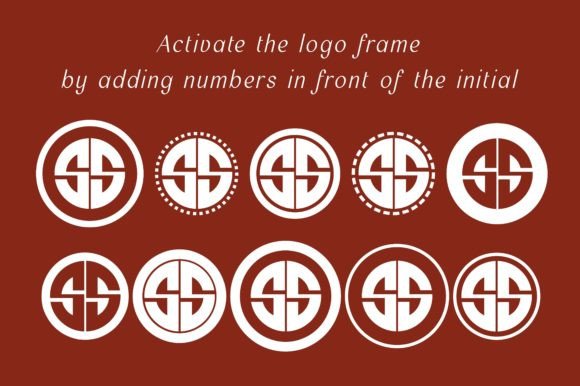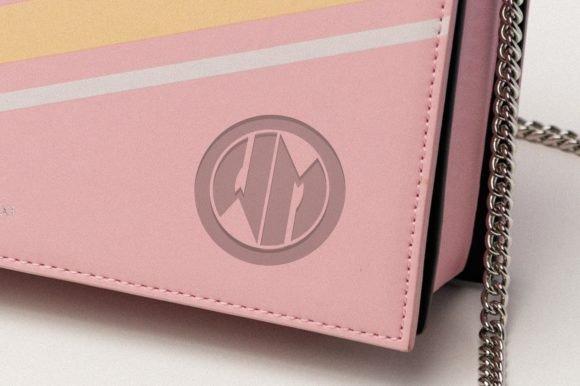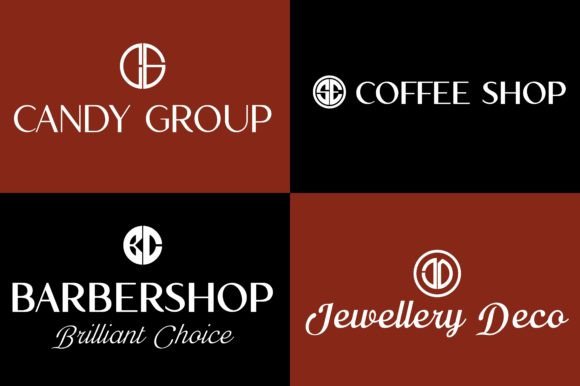
Introduction to Circle Two Letter Font
As a designer, you’ve probably experienced that moment of inspiration when a single font can elevate an entire project. For me, it was the discovery of the Circle Two Letter Font – a stunning monogram font that effortlessly combines elegance and simplicity. Its clean, modern design features two interlocking letters that seem to dance together in perfect harmony. Whether you’re working on a wedding invitation or a corporate logo, this font adds a touch of sophistication that’s hard to resist.
What makes the Circle Two Letter Font truly special is its versatility. With its transparent background and high-quality design, it’s the perfect resource for designers looking to add a unique touch to their creative projects. Plus, with a free download available, it’s an accessible design tool that can be used by designers of all levels.
Key Features of Circle Two Letter Font
- High-quality design for creative projects, available for free download as a design resource.
- Comes in a range of two-letter combinations, perfect for logos, branding, or other design elements.
- Features a transparent background, allowing for seamless integration into various design projects.
- Perfect for designers looking for a unique and creative element to enhance their design projects.
Honest Review: Circle Two Letter Font
I recently stumbled upon the Circle Two Letter Font, a unique design resource that I just had to share with you all. As a designer, I’m always on the lookout for high-quality fonts that can elevate my creative projects.
The Circle Two Letter Font is a free download, which is a huge plus in my book. I love that it’s available for anyone to use, and the transparent background makes it super versatile. ✨ One thing I appreciate about this font is its simplicity – it’s clean, easy to read, and works well in a variety of contexts.
Here are some of the key features that I think make the Circle Two Letter Font shine:
- Unique two-letter combinations that add a touch of whimsy to any design
- High-quality design that looks great on both light and dark backgrounds
- Transparent background makes it easy to customize and layer with other elements
That being said, there are a few limitations to keep in mind: ⚠️ The font is only available in a limited range of sizes, which may not be ideal for large-scale designs. Additionally, the two-letter combinations can feel a bit repetitive if used too extensively.
Overall, I’m really impressed with the Circle Two Letter Font, and I think it’s a great addition to any designer’s toolkit. Whether you’re working on a personal project or a commercial design, this font is sure to add some creative flair to your work.
How to Use Circle Two Letter Font
Designing with Circle Two Letter Font
The Circle Two Letter Font is a versatile design resource perfect for any creative project. With a free download available, you can access this high-quality font in no time. Its transparent background makes it easy to incorporate into any design.
Using Circle Two Letter Font in Adobe Photoshop/Illustrator
For more advanced users, the Circle Two Letter Font can be used in Adobe Photoshop and Illustrator. Use the font to create custom graphics, logos, or even edit text within your images. The transparent background makes it easy to layer with other design elements.
Using Circle Two Letter Font in PowerPoint/Word
You can also use the Circle Two Letter Font in PowerPoint and Word to add a touch of elegance to your presentations and documents. Simply upload the font file and use it to create headings, titles, or even paragraphs of text.
Tips for Getting the Most Out of Circle Two Letter Font
For best results, use the Circle Two Letter Font in conjunction with other design elements, such as icons or graphics. Experiment with different font sizes, colors, and combinations to create unique and eye-catching designs.
Common Use Cases for Circle Two Letter Font
The Circle Two Letter Font is perfect for a variety of design projects, including branding, marketing materials, and social media graphics. Its versatility and high-quality design make it an excellent choice for any creative project.